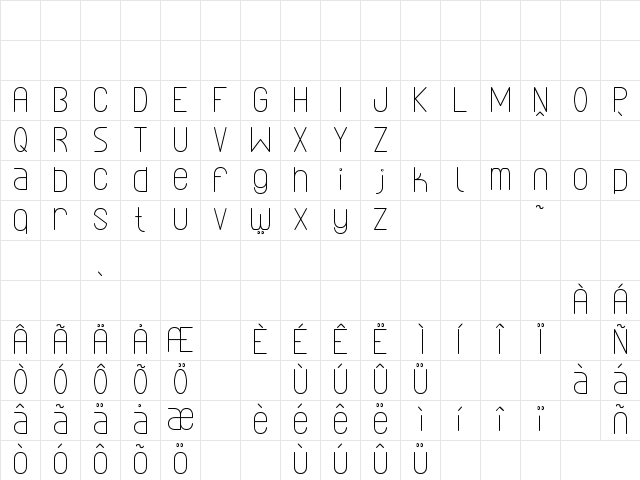
Lineal Simples St Regular
Design Context for Lineal Simples St
Lineal Simples St is a composed and adaptable typeface that performs quietly and consistently across a wide range of design contexts.
Pro Tip: Use Lineal Simples St in both headline and body roles to test its range before committing to a single application.